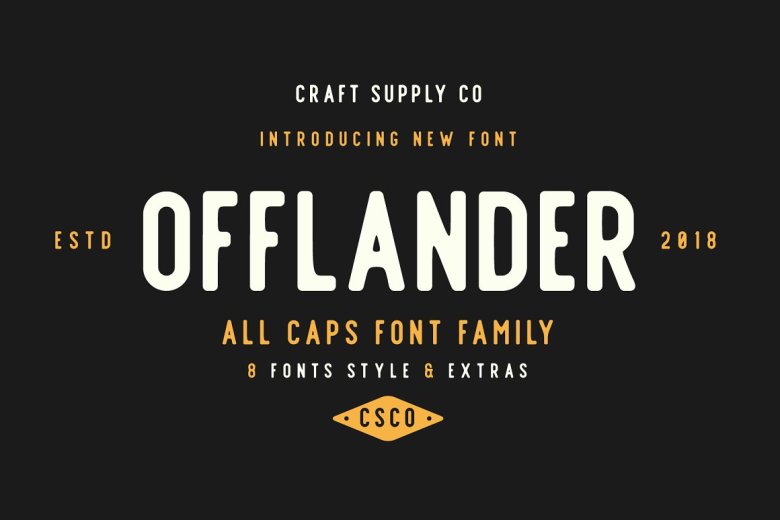
Offlander Font
Offlander- All Capitals Font can be utilized in almost any design project, from print materials to packaging designs. Use your creativity and combine it with graphic design elements found in Extras for an eye-catching and colorful finished product!
Make a retro design, pop vintage style book title or greeting card by playing around with shapes and patterns! Have fun exploring how the shapes work!
Offlander Sans Serif Font